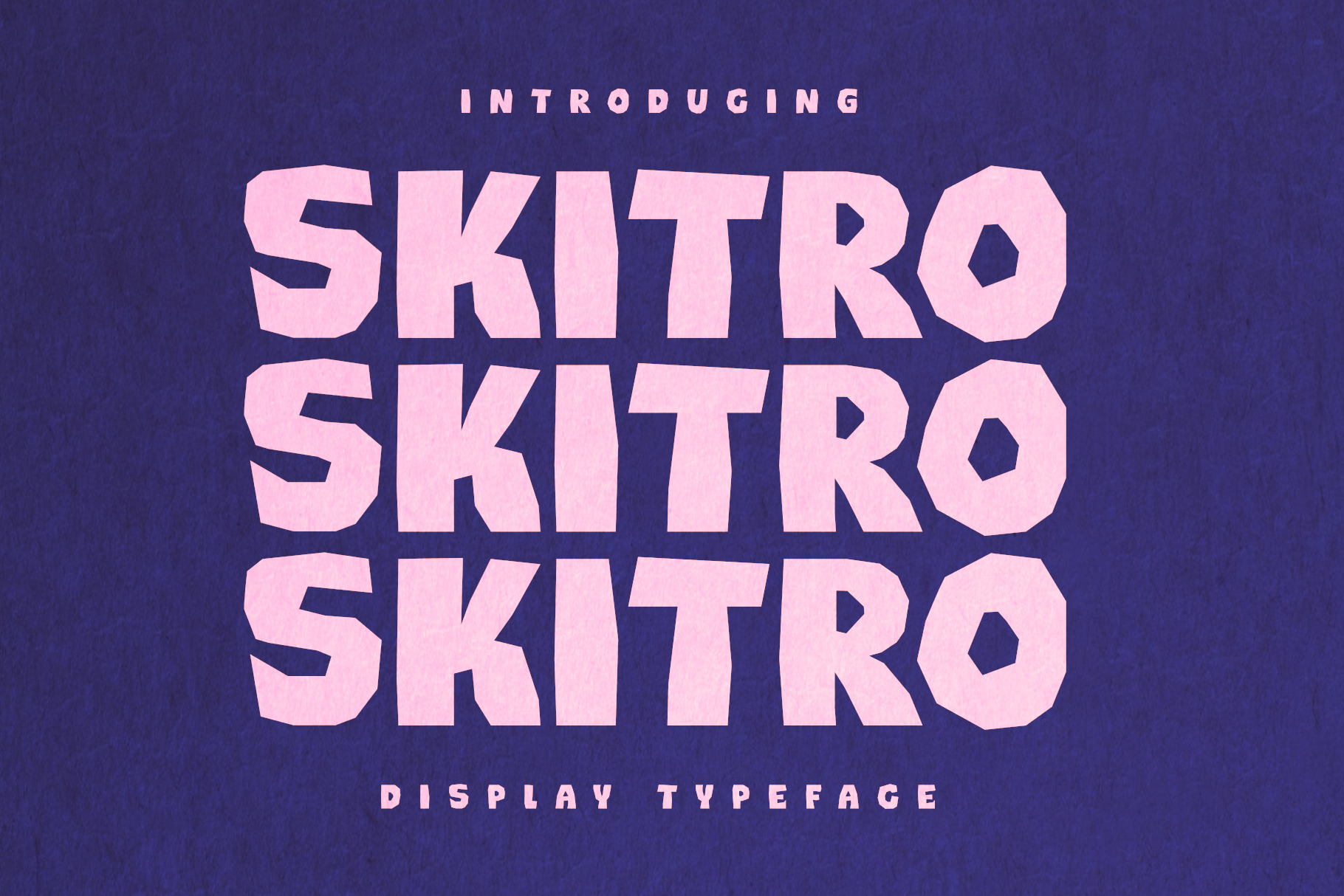
Skitro | Cutout Font
Skitro is a display font cut from paper. It is composed in capital letters. It contains 236 glyphs. The font attracts the attention of recipients with its character.